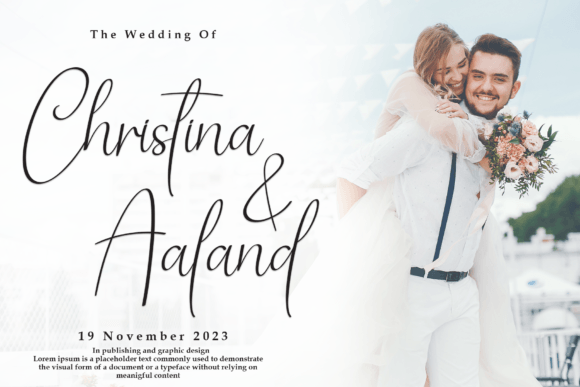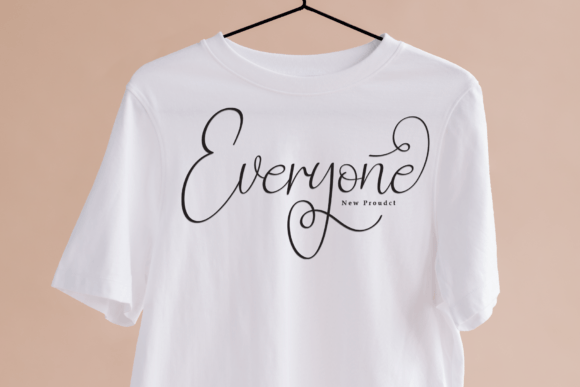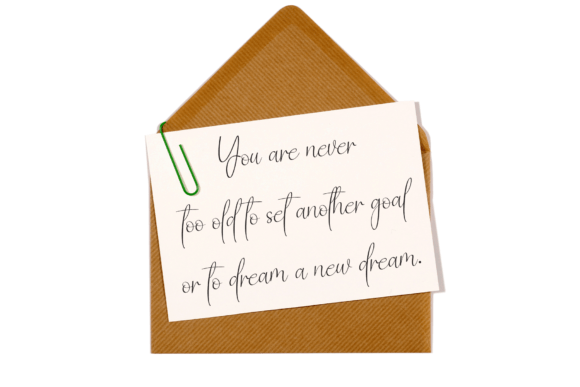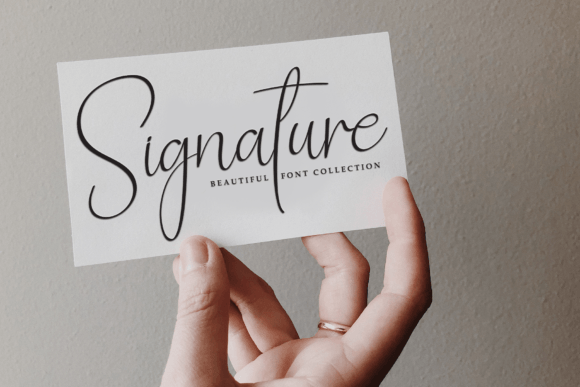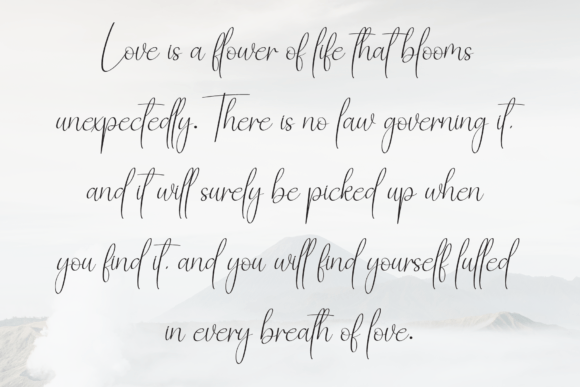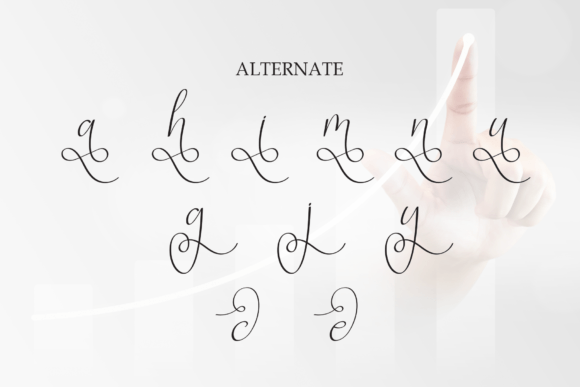
Unleash Your Creativity with Advantage Font: A Dazzling Script Font
Are you a designer, crafty individual, or simply someone who appreciates beautiful typography? Look no further than Advantage Font, a stunning script font that is sure to elevate your creative projects. With its neat craftsmanship and high level of detail, Advantage Font is an excellent addition to any font library.
What Makes Advantage Font Special?
Advantage Font is not just another script font; it’s a game-changer. Its unique design and features make it an ideal choice for a wide range of projects, from creative designs to commercial applications. Here are some of the key advantages of using Advantage Font:
- Neatly Crafted and Highly Detailed: Advantage Font is meticulously designed to provide a clean and elegant look. Its intricate details make it perfect for projects that require a touch of sophistication.
- PUA Encoded: This font is PUA (Private Use Area) encoded, which means you can easily access all glyphs and swashes. This feature allows for greater flexibility and creativity in your designs.
- Versatile: Whether you’re working on a logo, branding project, or simply want to add some flair to your social media graphics, Advantage Font is up to the task. Its versatility makes it an excellent choice for various design applications.
How Advantage Font Can Enhance Your Creations
With Advantage Font, the possibilities are endless. This font has the potential to transform any creation into a stunning work of art. Here are some ways Advantage Font can enhance your designs:
- Adds Elegance and Sophistication: Advantage Font’s elegant design and flowing script style can add a touch of sophistication to any project.
- Improves Readability: The font’s clear and legible design ensures that your message is conveyed effectively, making it perfect for body text and headings.
- Increases Visual Appeal: Advantage Font’s unique swashes and glyphs can add a creative flair to your designs, making them more visually appealing and engaging.
Why Designers and Crafters Love Advantage Font
Designers and crafters alike appreciate fonts that offer flexibility, creativity, and ease of use. Advantage Font ticks all these boxes and more. Here are some reasons why designers and crafters love Advantage Font:
- High-Quality Design: The font’s high-quality design ensures that it looks great in various sizes and resolutions.
Tips for Getting the Most Out of Advantage Font
To maximize the potential of Advantage Font, here are some tips to keep in mind:
- Experiment with Different Sizes and Colors: Advantage Font looks great in various sizes and colors. Experiment with different combinations to find the one that works best for your project.
- Pair it with Other Fonts: Advantage Font pairs well with other fonts. Try combining it with a sans-serif font for a striking contrast.
- Use Swashes and Glyphs: Take advantage of Advantage Font’s swashes and glyphs to add a creative touch to your designs.
In conclusion, Advantage Font is an exceptional script font that offers a unique combination of elegance, versatility, and creativity. Its PUA encoding, neat craftsmanship, and high level of detail make it an excellent addition to any font library. Whether you’re a designer, crafty individual, or simply someone who appreciates beautiful typography, Advantage Font is sure to unleash your creativity and take your designs to the next level.